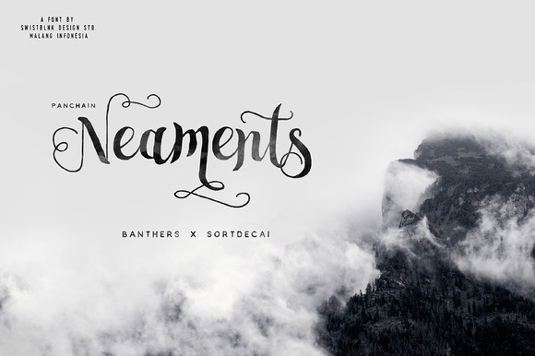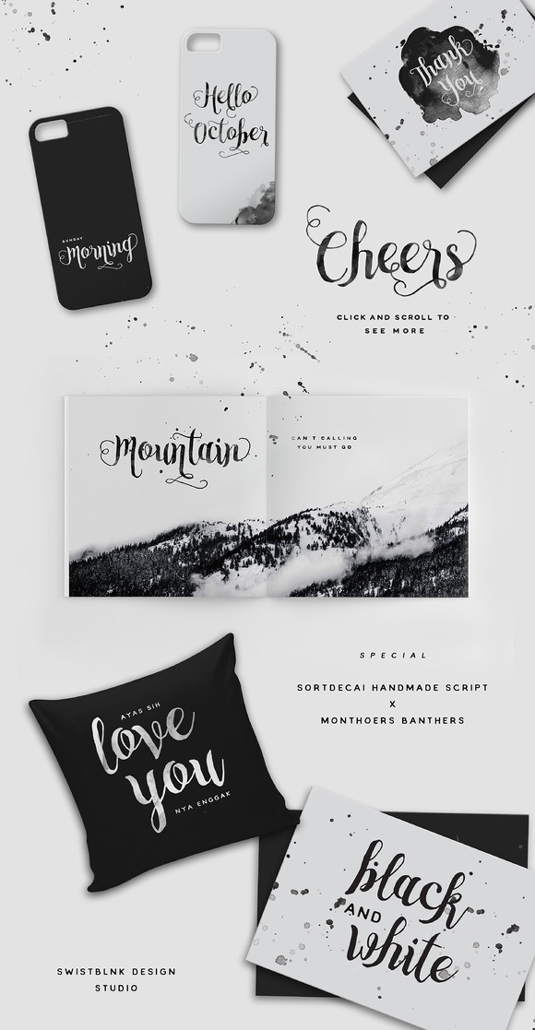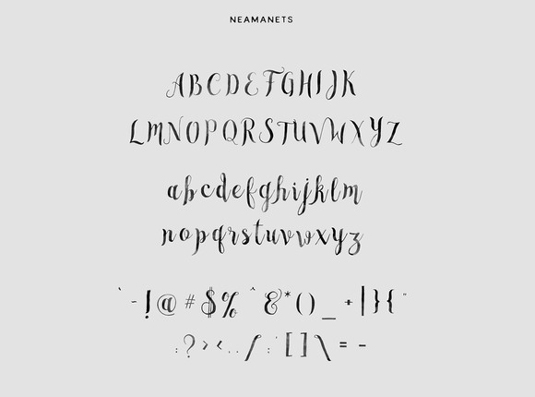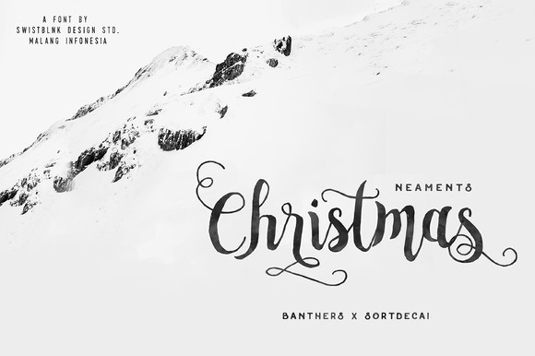
Font of the day: Neamants
Neamants by Agga Swistblnk
Graphic designer Agga Swistblnk is no stranger to our font of the day posts, with a number of beautiful type designs under her belt. And today's offering, Neamants, is no exception. The latest addition to her Sortdecai family, this hand-drawn design is great for any Christmas and vintage-style designs.